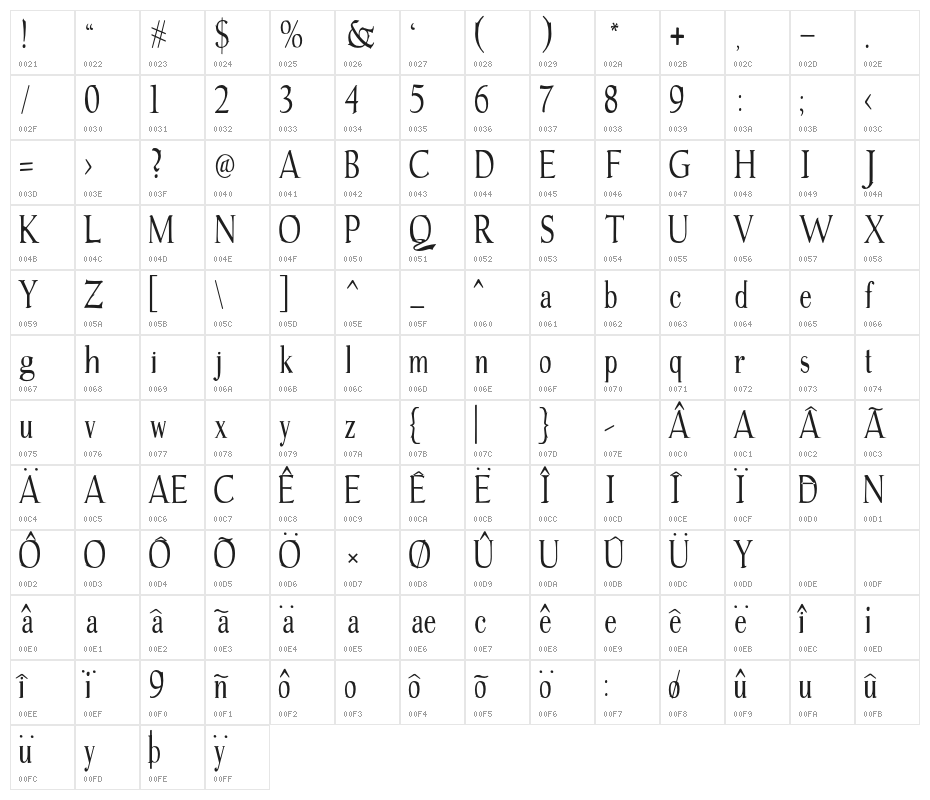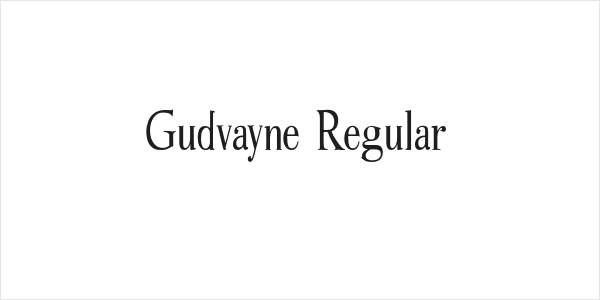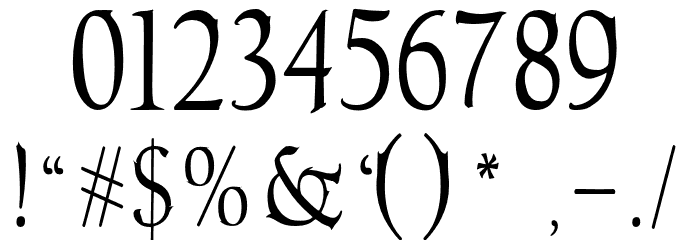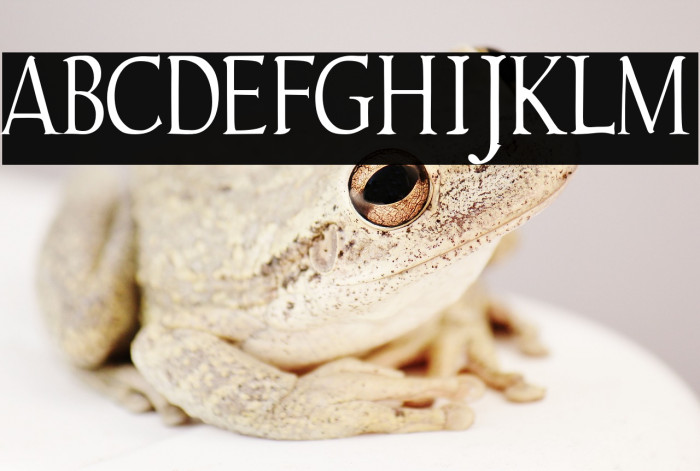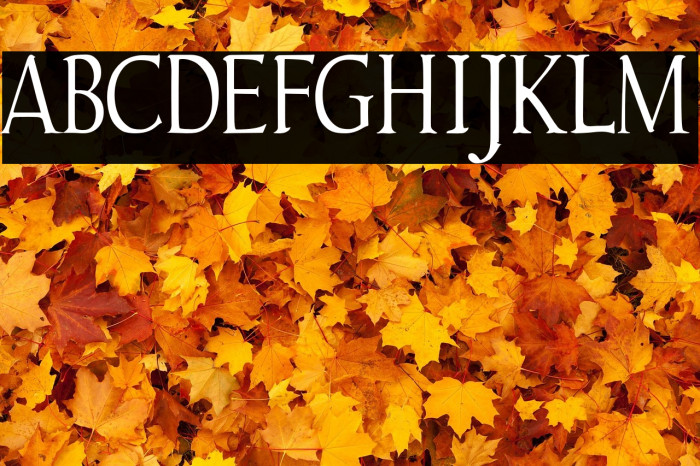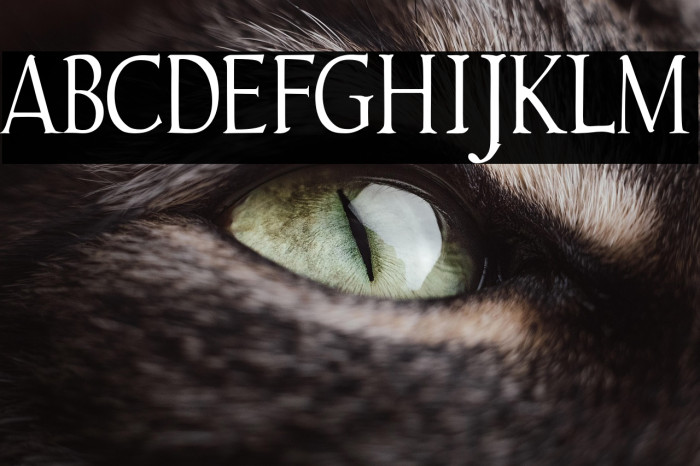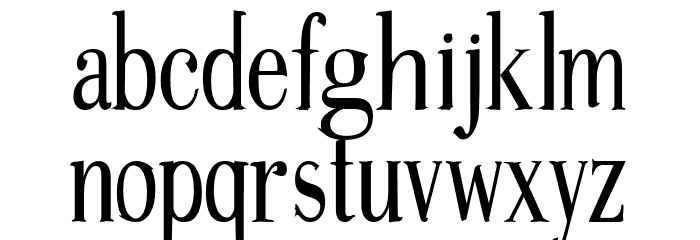
Gudvayne Regular Font
Gudvayne Regular Description
This font features a distinctive and elegant design with a classic serif style. The characters are characterized by sharp, pointed serifs and a moderate contrast between thick and thin strokes, giving it a sophisticated and refined appearance. The uppercase letters are tall and commanding, while the lowercase letters maintain a graceful and flowing form. The numerals are consistent with the overall style, providing a cohesive look. Special characters are thoughtfully designed to complement the alphabet, making this font versatile for various applications.
| Proposed Projects | Ideal for projects requiring a touch of elegance and tradition, such as book covers, formal invitations, branding for luxury products, or editorial design. |